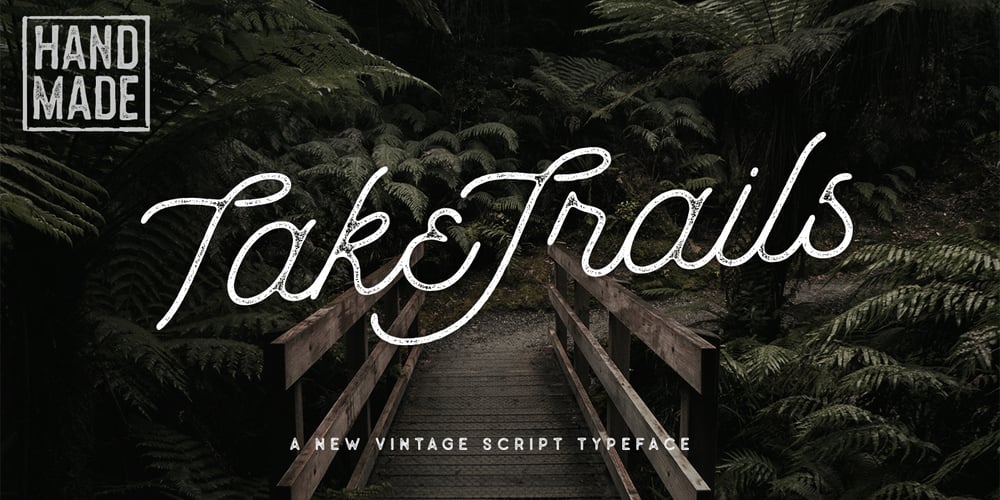
Take Trails Font Family was designed by Pratama Yudha and published by Pratama Yudha. Take Trails contains 2 styles and family package options. Take Trails is a handcrafted script vintage font. The font uses rounded rough edges, inked style and has texture, so this script typeface gives a feel of vintage, classic, old, handmade looked-like. The process of the font design went through scanning and digitally carving, and the texture is well crafted and was carefully added in each character.